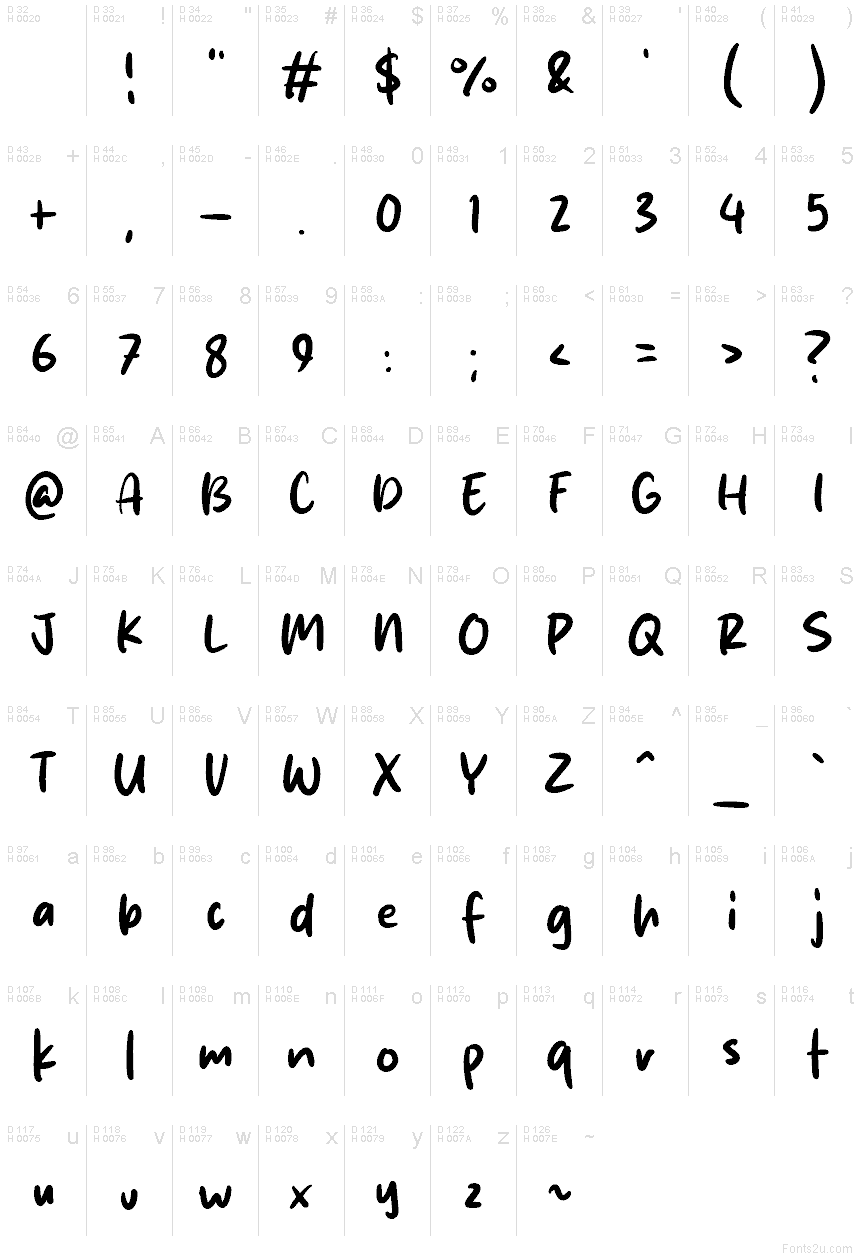
Matcha Vibes
Matcha Vibes font by MJType is a free handwritten display font that pours on cozy, café‑style charm. Thick, inky strokes taper into soft, rounded ends, giving headlines a friendly bounce without losing clarity. It feels like a fresh marker on smooth paper—casual, confident, and ready to be the face of a modern lifestyle brand.
Using Matcha Vibes, your titles instantly feel approachable, which shines on coffee shop menus, wellness packaging, social posts, event flyers, boutique logos, and YouTube thumbnails. The generous weight and steady rhythm hold up at larger sizes, while the informal flow adds warmth. Pair this free font with a clean grotesque sans for body copy to keep layouts crisp and grounded.